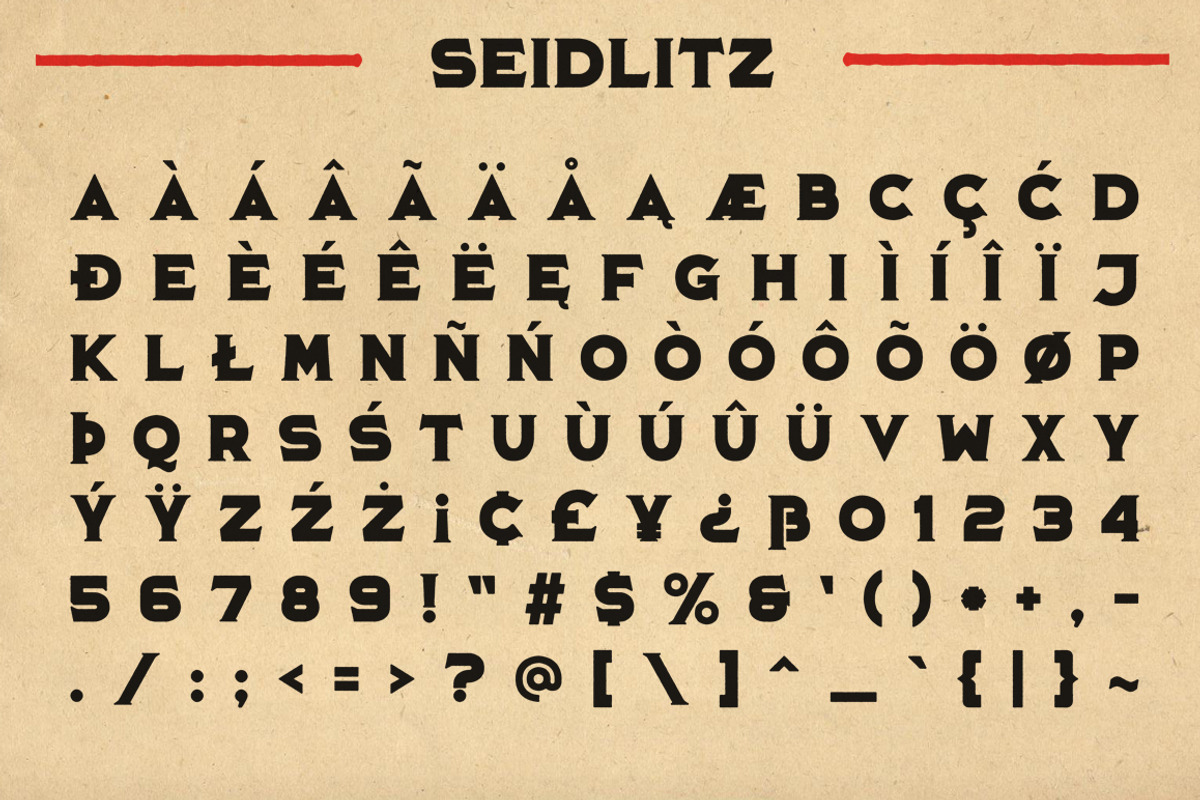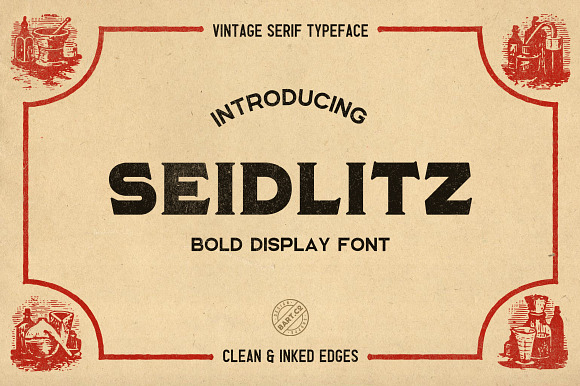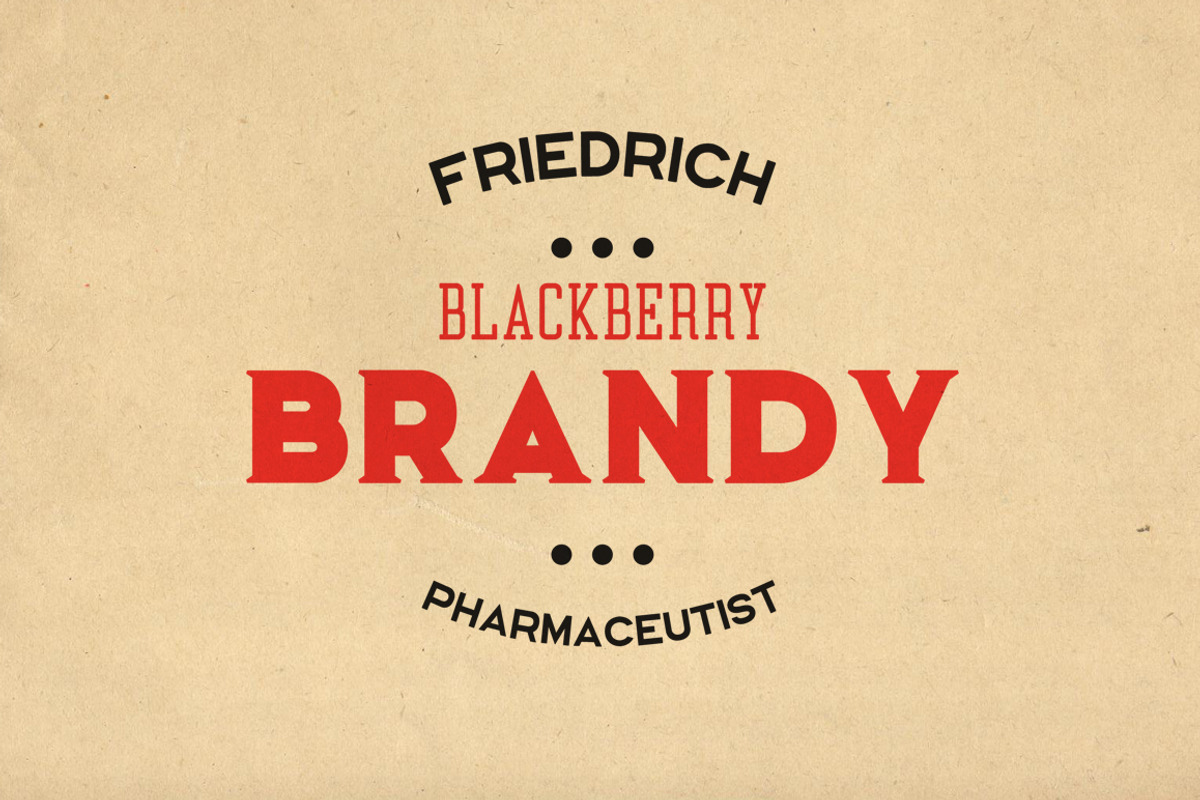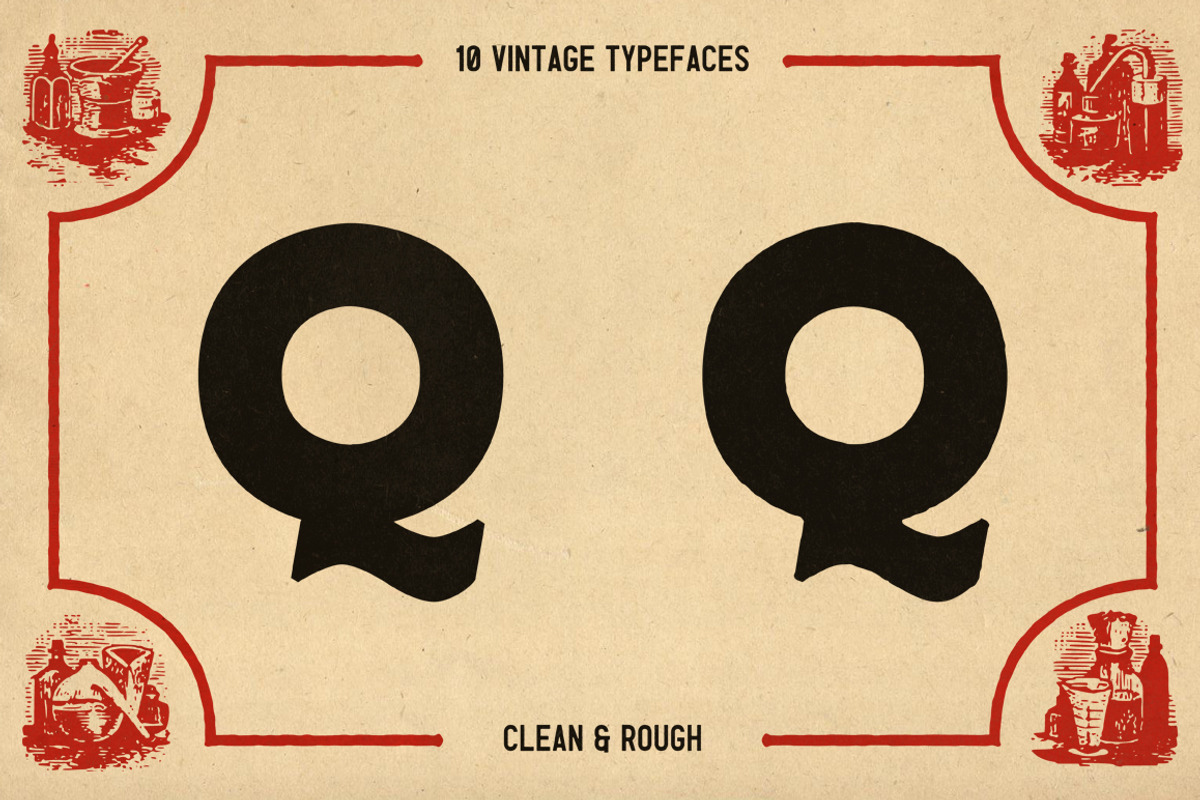
Seidlitz Font
Seidlitz is a part of "The Apothecary Collection" -
Seidlitz is a bold vintage font inspired by retro apothecary typography. Typeface is great for vintage logos, labels, posters and more.
- Pack includes two styles: clean and rough.
Why Seidlitz Font is worth a look
Seidlitz Font by Bart Wesolek fits naturally into Branding, posters, packaging, typography.